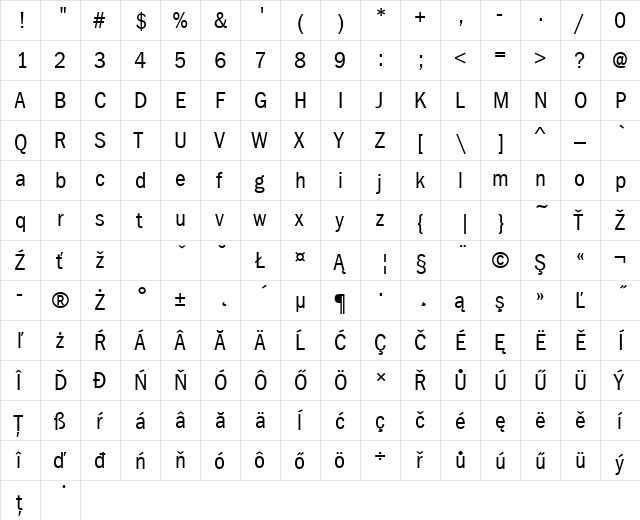
FranklinGotItcTEEBooCon Regular
FranklinGotItcTEEBooCon is a composed and adaptable typeface that performs quietly and consistently across a wide range of design contexts.